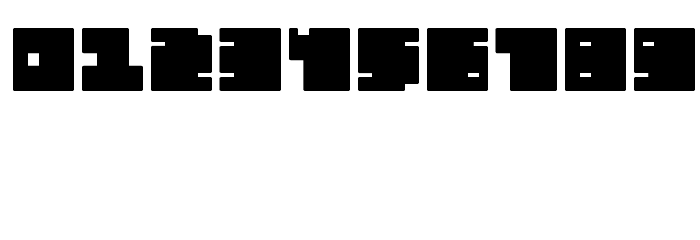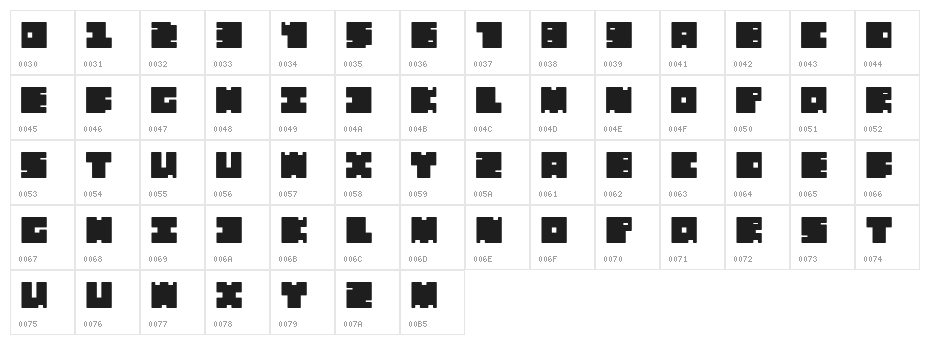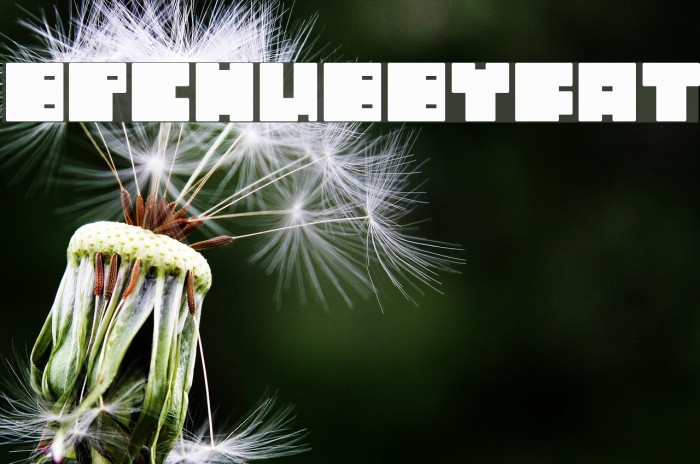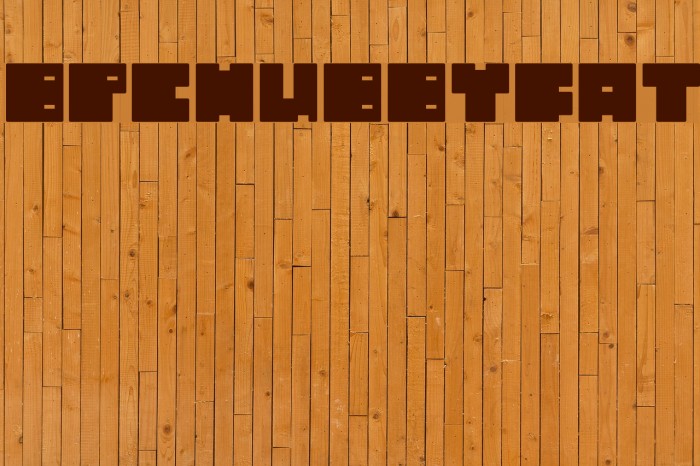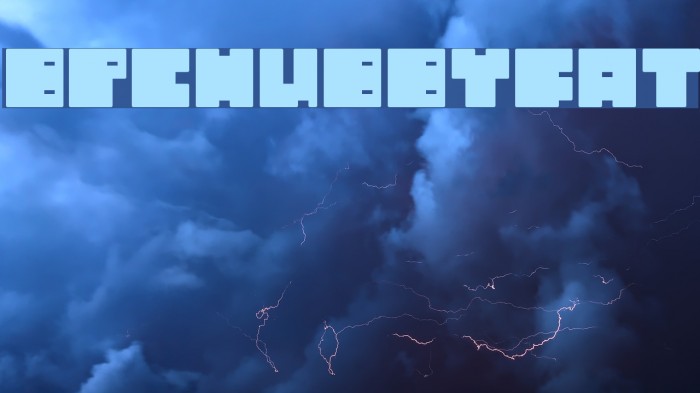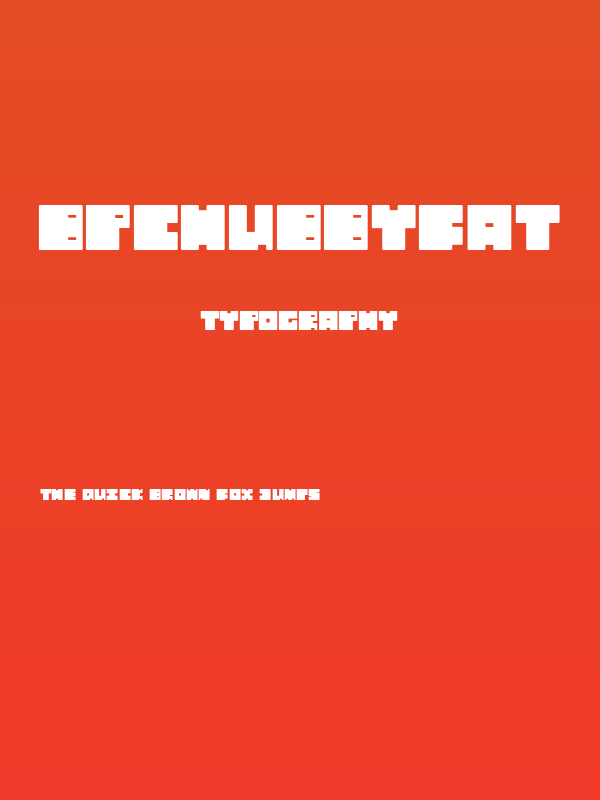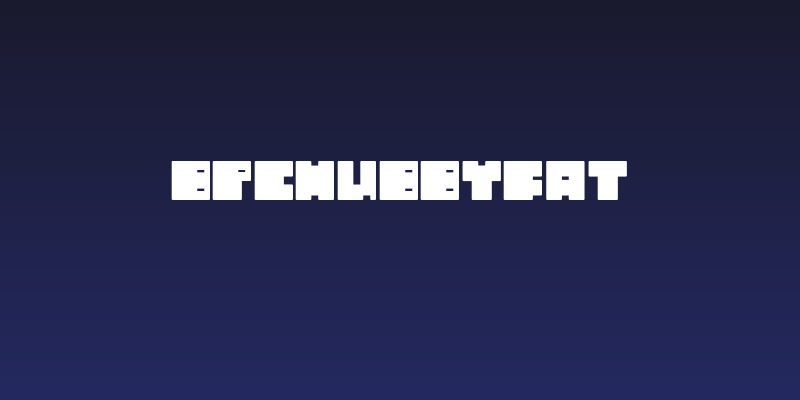
BPchubbyFat Font
BPchubbyFat Description
This font features a bold, blocky design with a playful and chunky appearance. The characters are uniformly thick, creating a strong visual impact. The geometric shapes and lack of curves give it a modern, digital feel. The uppercase and lowercase letters maintain a consistent style, with each character occupying a similar width. The numbers and special characters follow the same design principles, ensuring a cohesive look across all elements. This font's unique style makes it stand out, ideal for projects that require a bold statement.
| Proposed Projects | Ideal for video game graphics, posters, logos, and any design requiring a strong, modern aesthetic. |